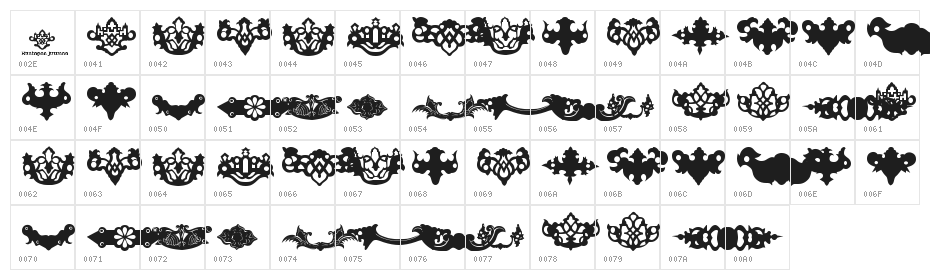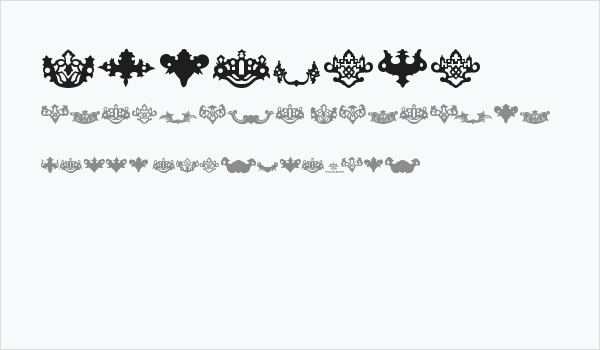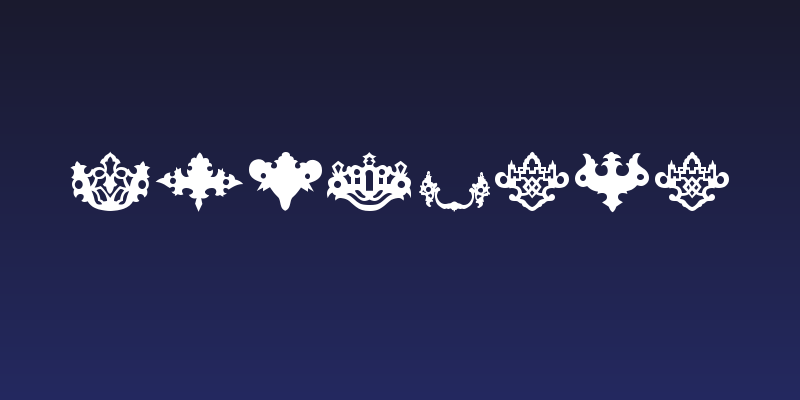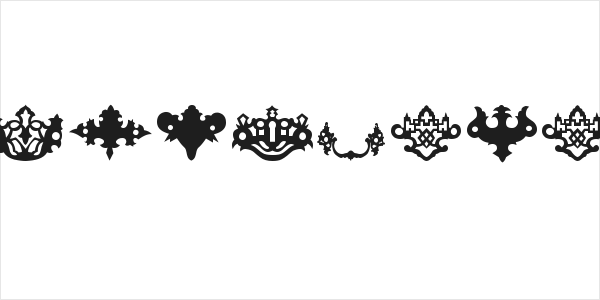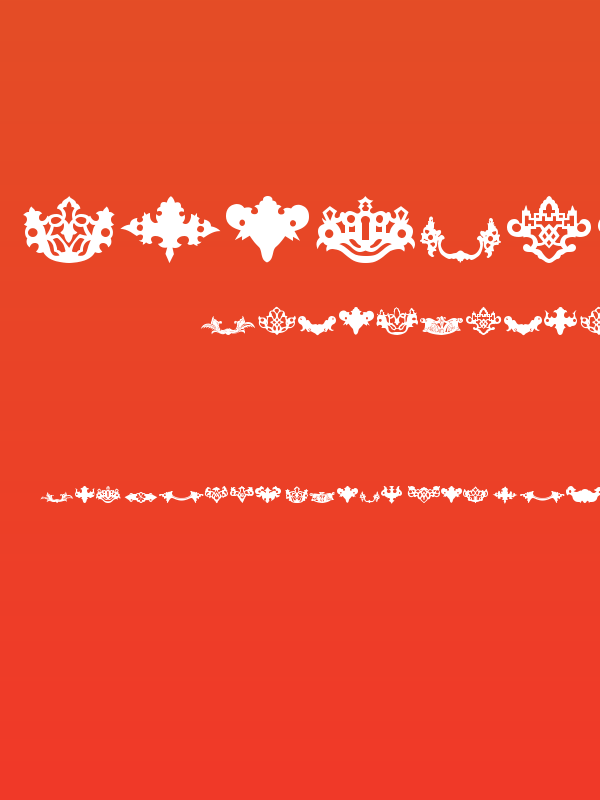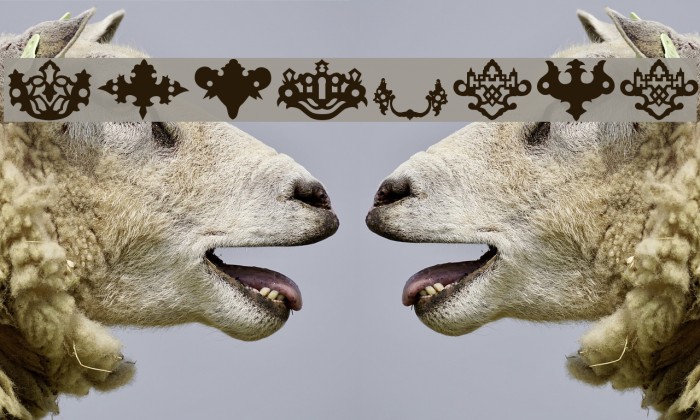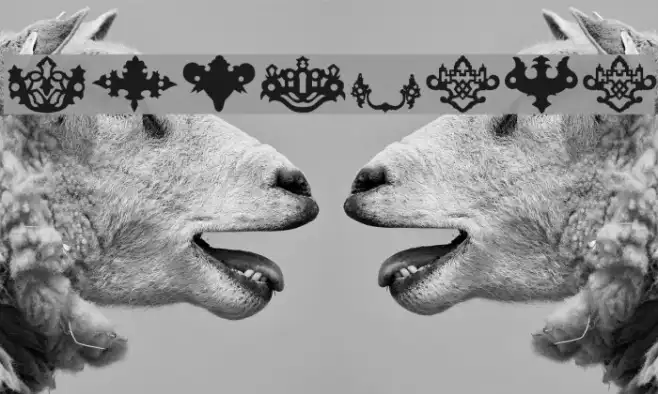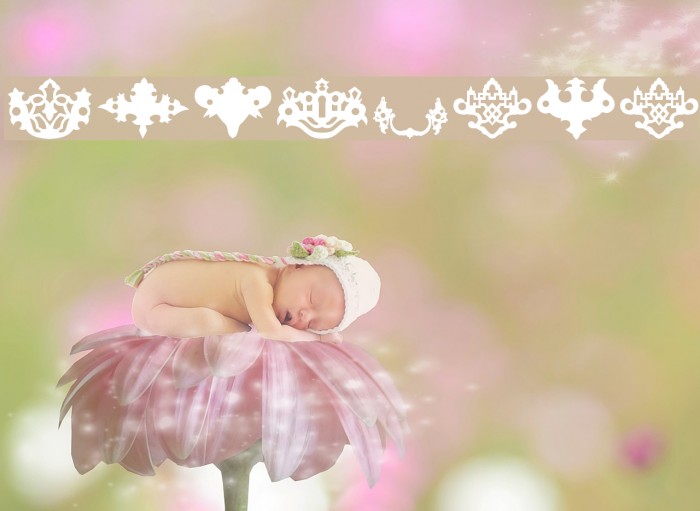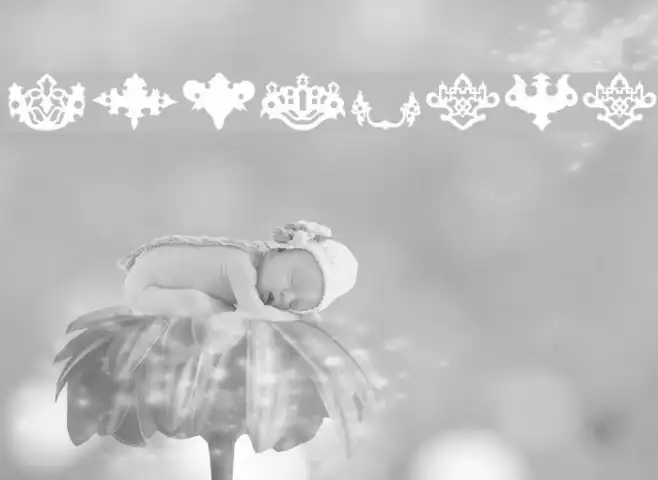
Djoewana Font
Djoewana Description
Ornate decorative glyphs inspired by traditional motifs, featuring intricate symmetrical patterns and flourishes. The characters are highly stylized, with strong visual emphasis on ornamental detail rather than legibility.
| Overall Style | Decorative, Traditional, Ornamental |
| Use Case | Borders, Dividers, Decorative accents |
| Proposed Projects | Invitations, certificates, borders, decorative dividers, branding for luxury or heritage products. |